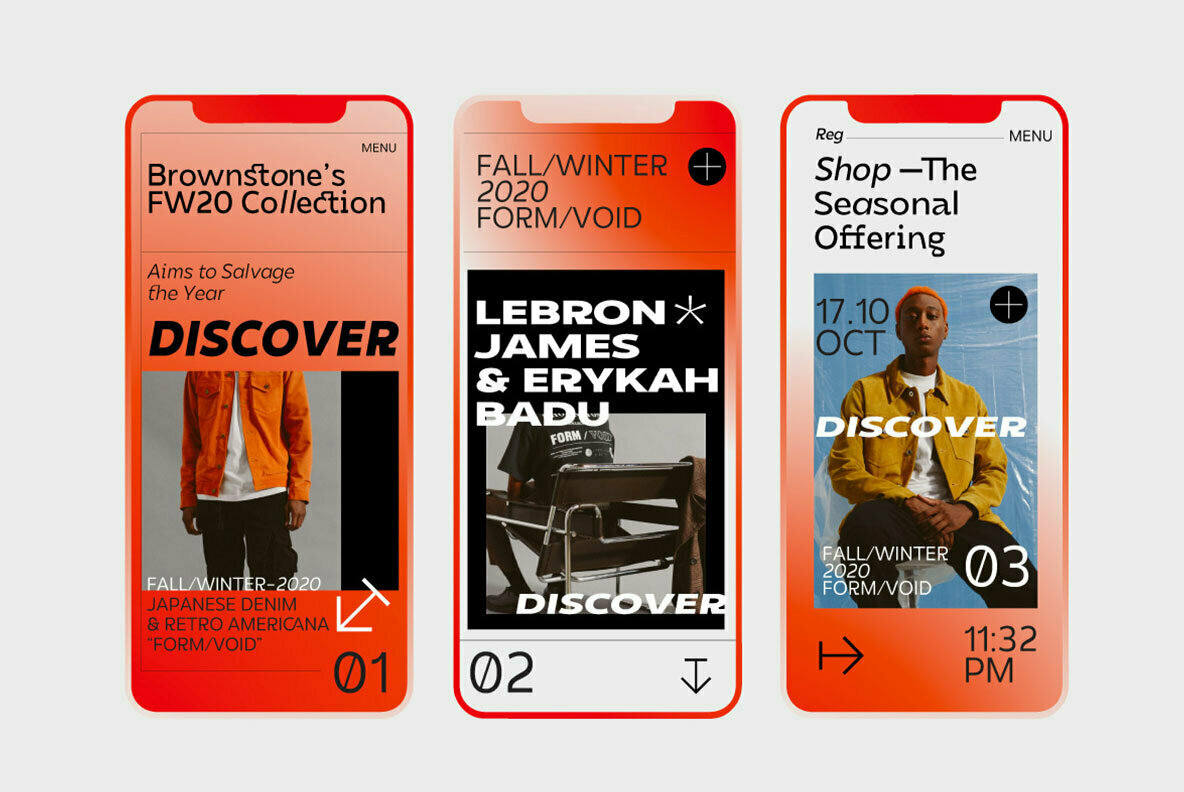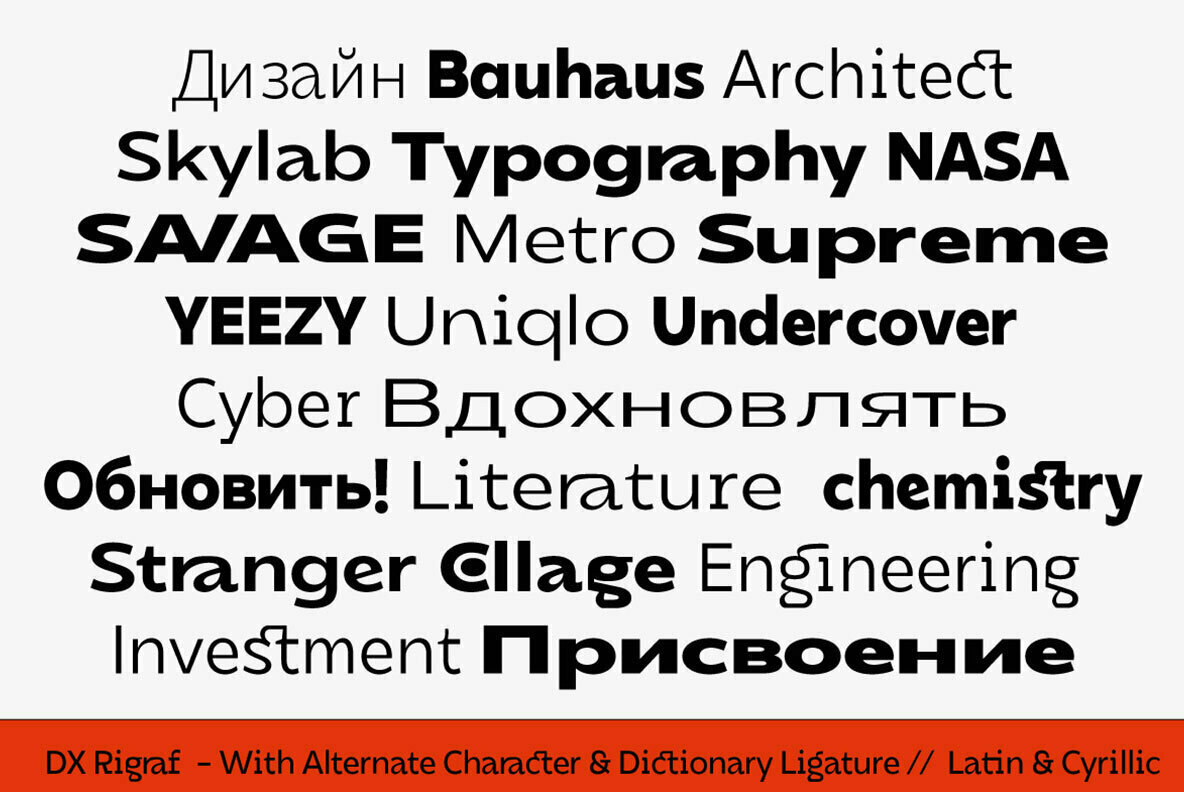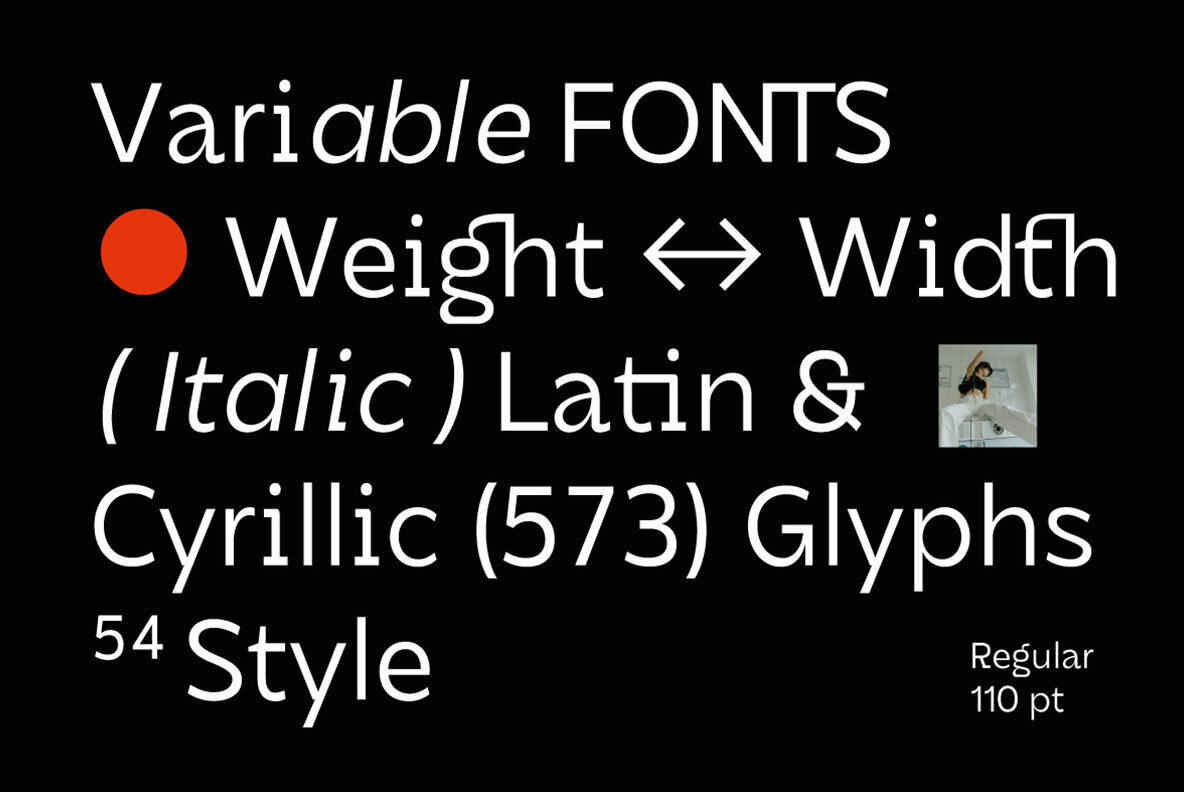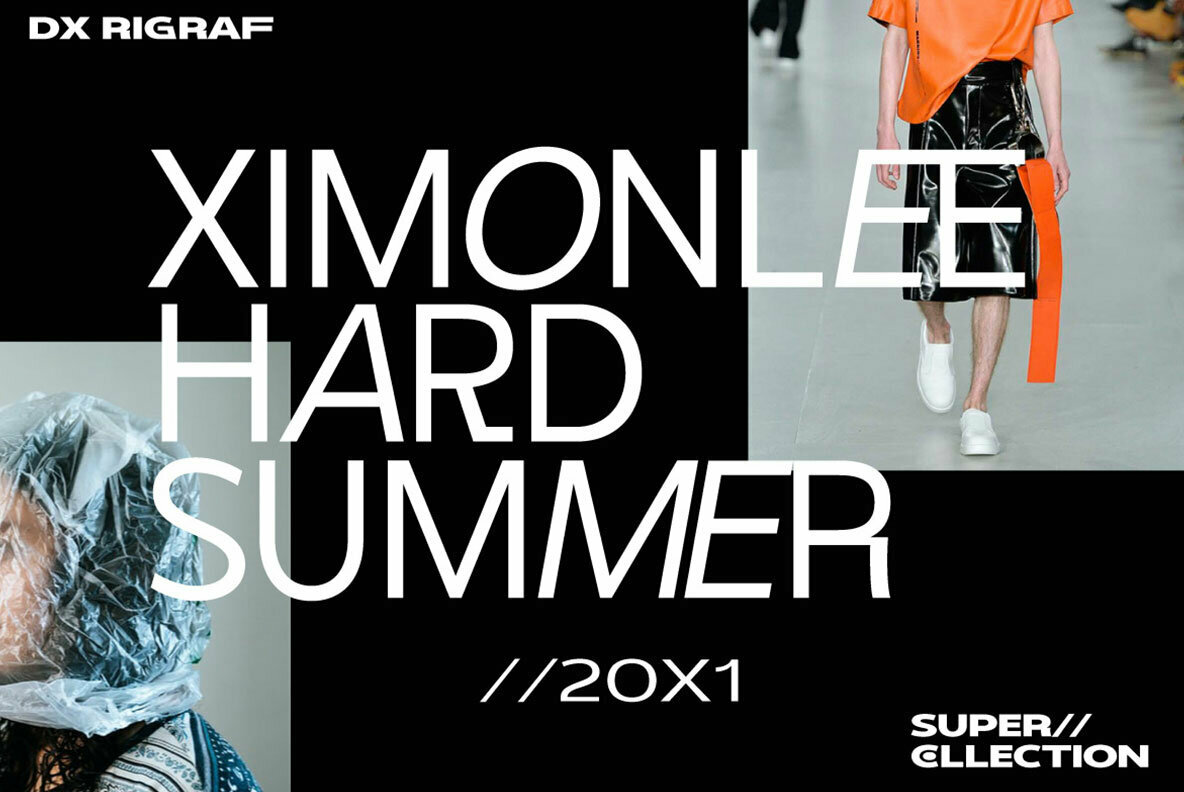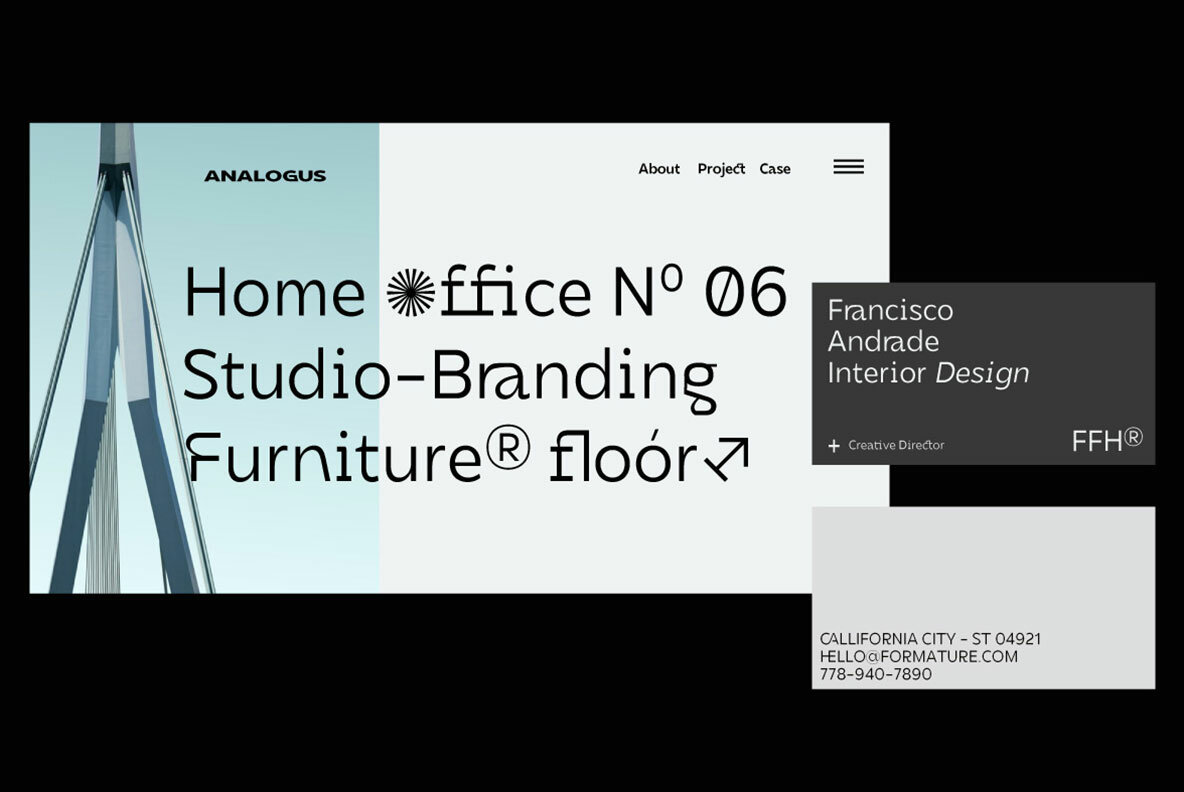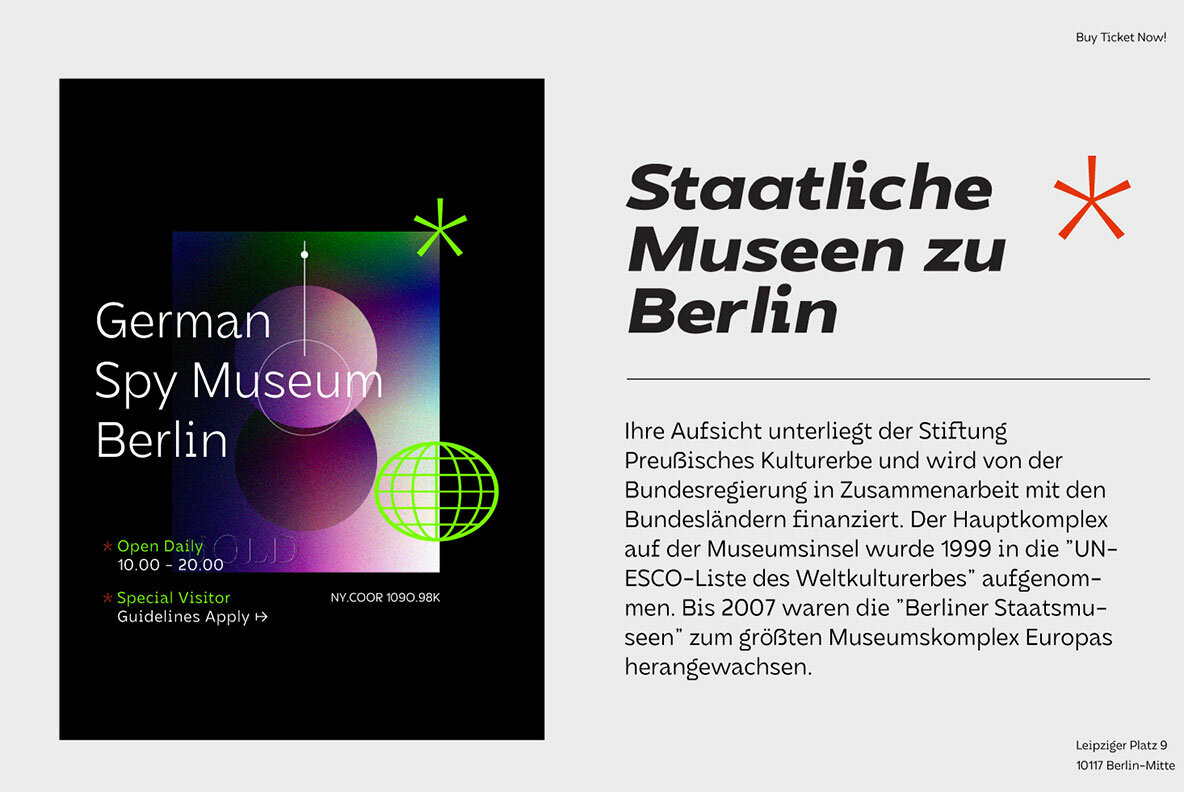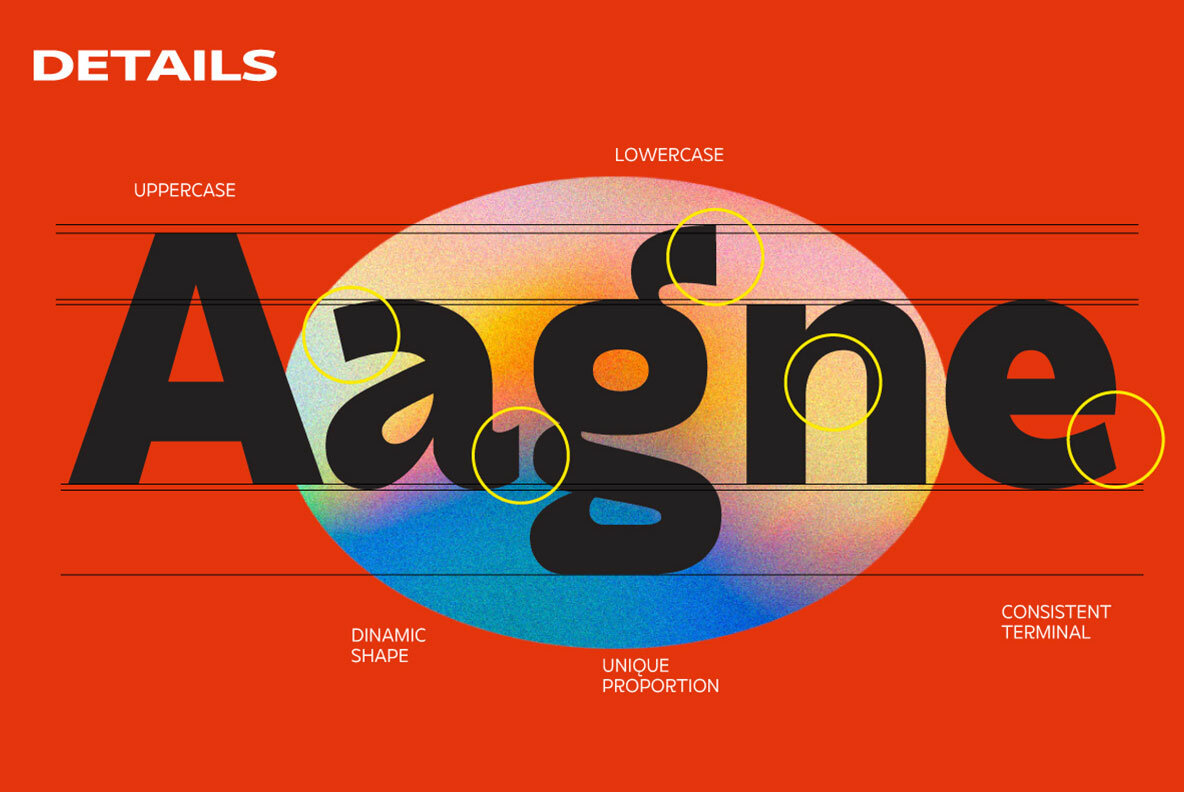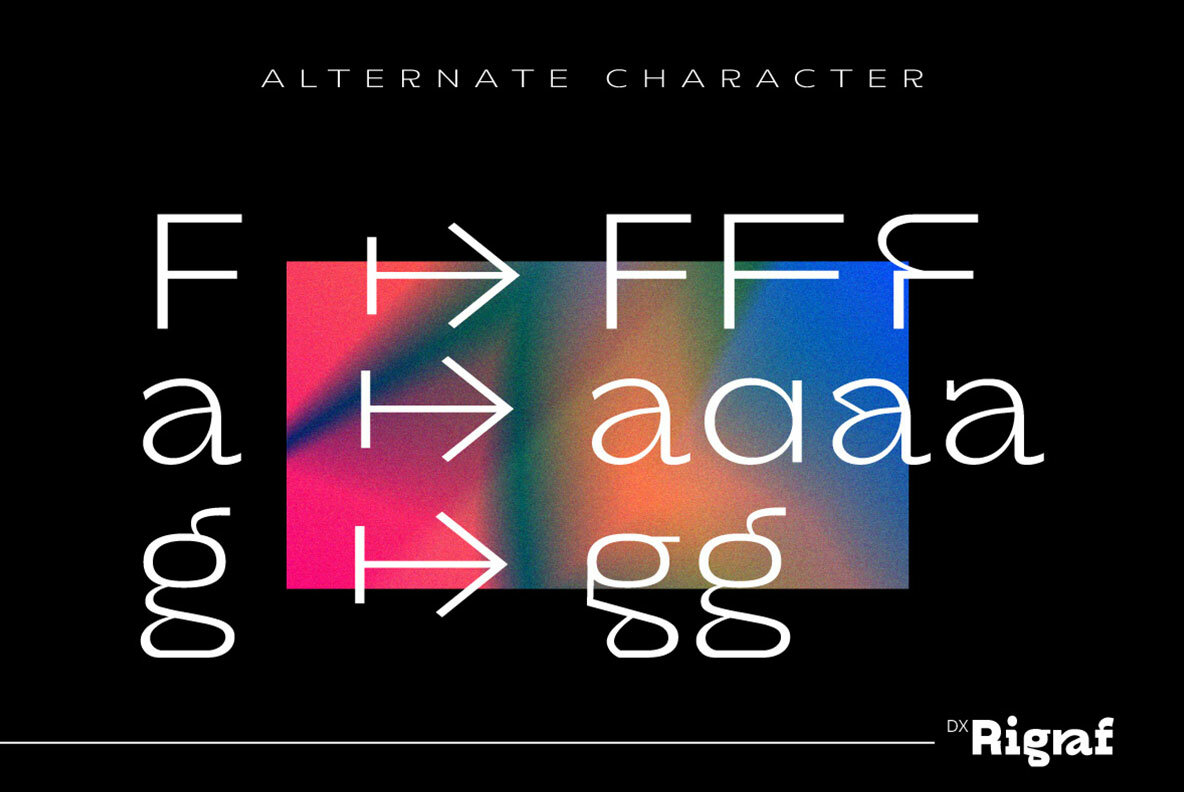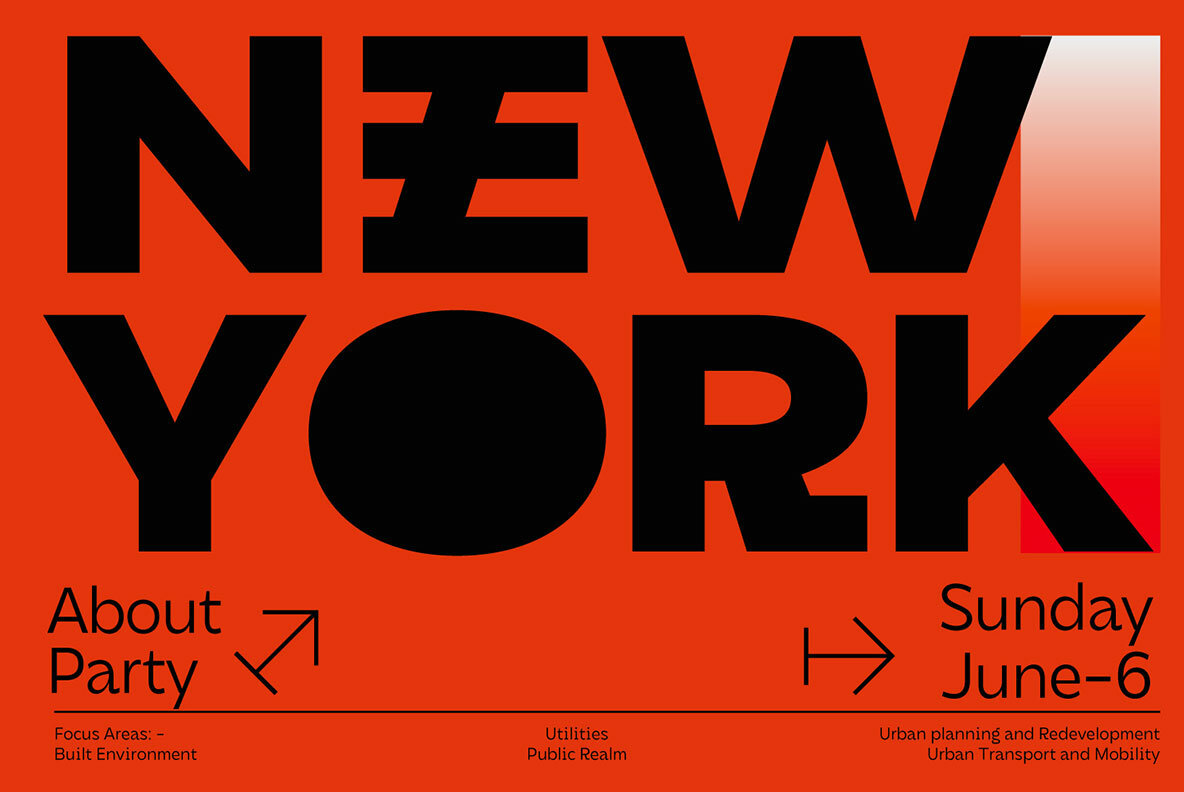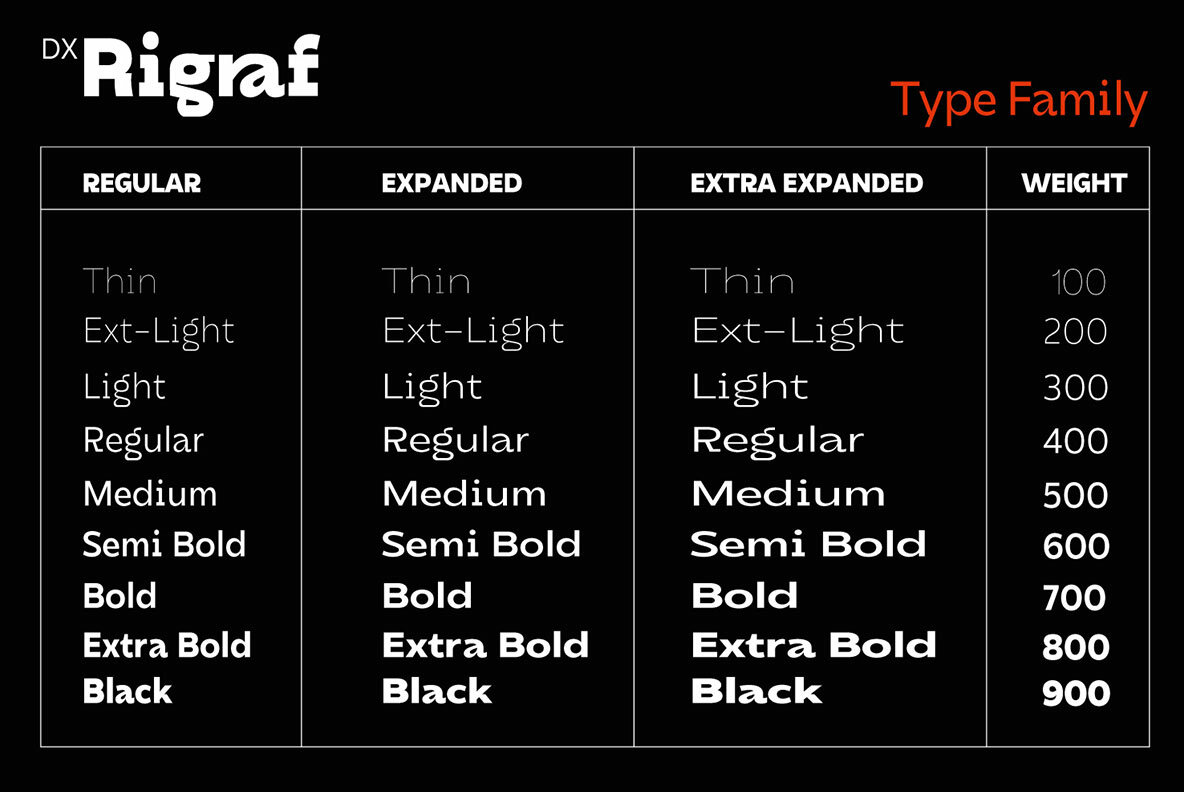
DX Rigraf Font
DX Rigraf a new fresh & modern sans serif with a contemporary monospace touches with strong shape! So beautiful on invitation like greeting cards, branding materials, business cards, quotes, posters, and more!
DX Rigraf Display Typeface is the part of a strong and modern display family. This typeface both impressive at display sizes and easily readable in text size, while the sharp shapes of the triangular sans and the distinctive letter shapes show their strength in logo design and impressive editorial use.
DX Rigraf come with elegant style, strength and contrasts, with features an extended latin character set of 577 glyphs covering over 33 languages. Dx rigraf It has been designed as a variable font to give lots of options and access to unique type looks, however it also includes nine weights to give just as much access to creativity to those without access to variable supporting software. Its distinctive character and many variables make it a versatile, stylish workhorse, great for interfaces and design.